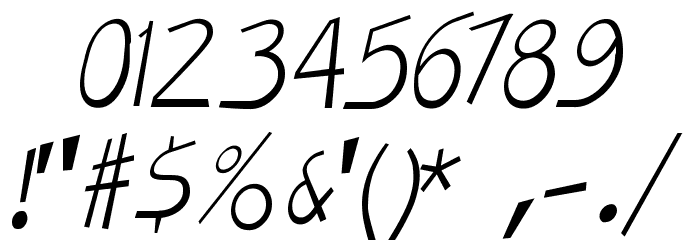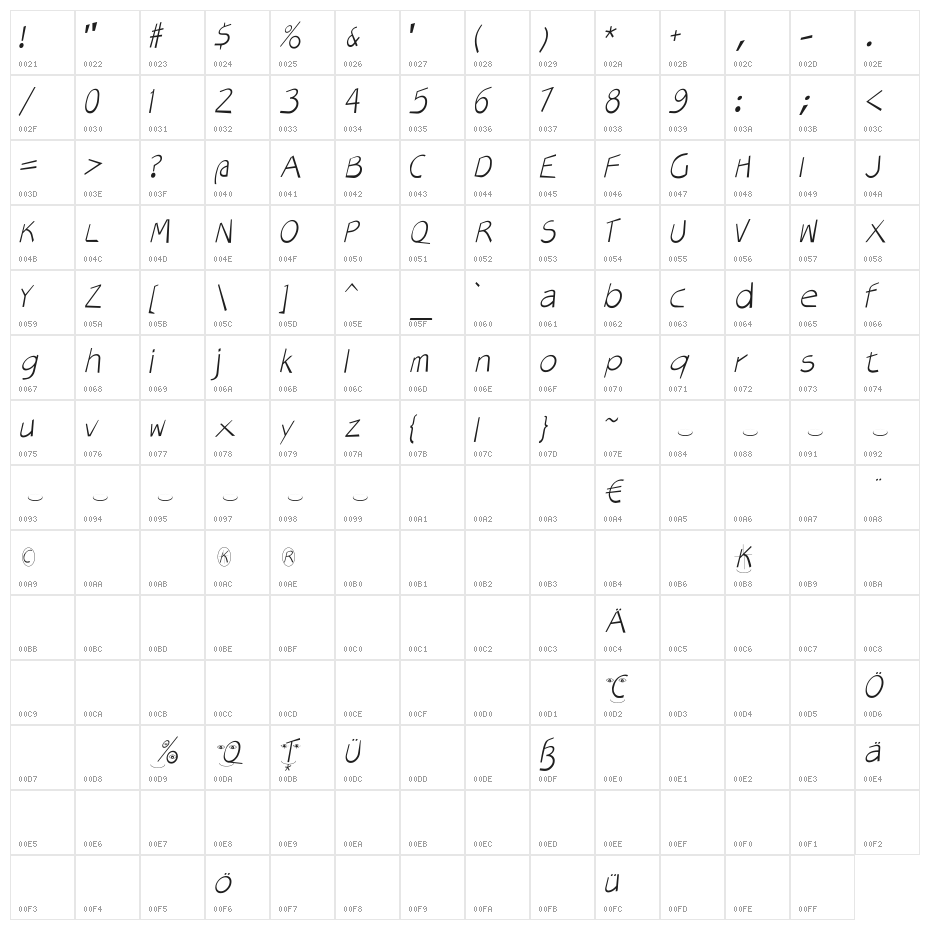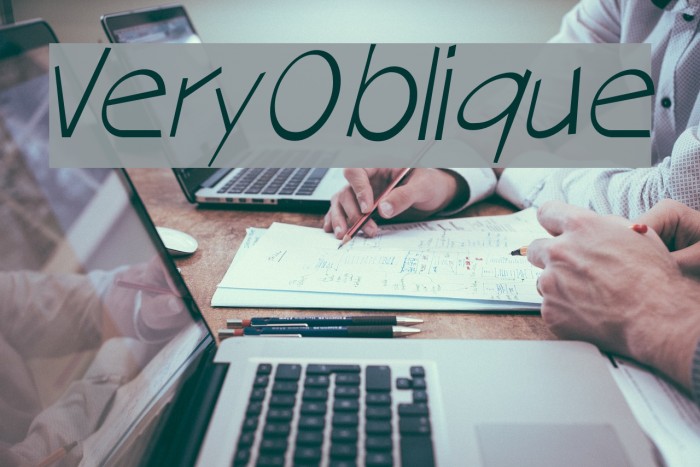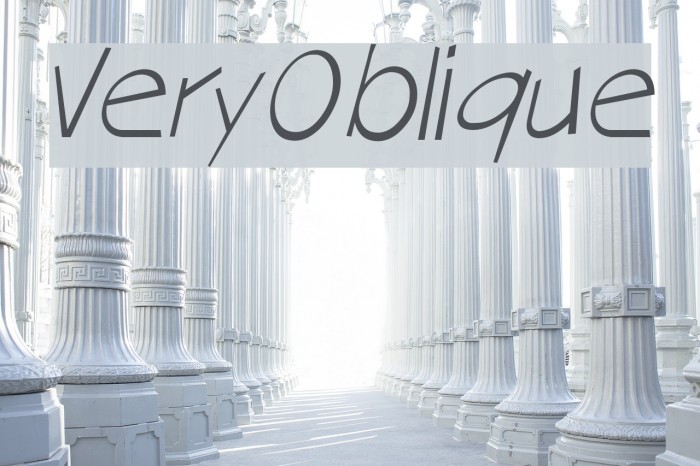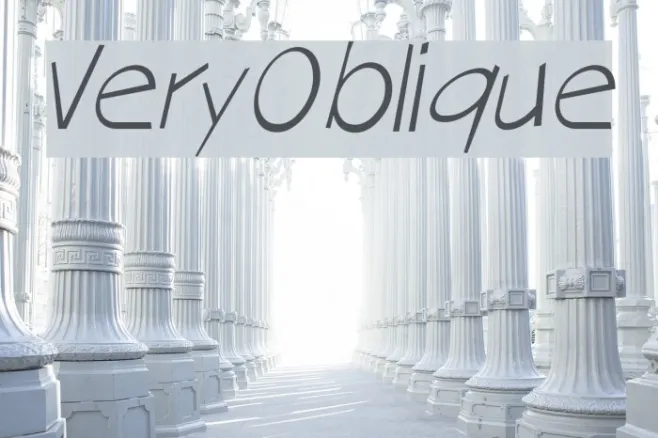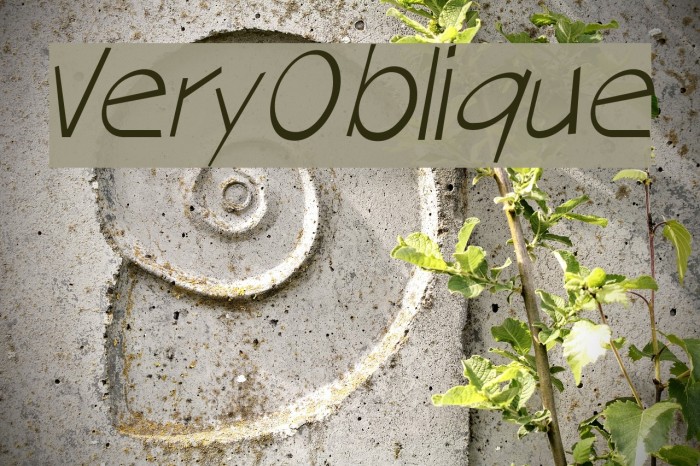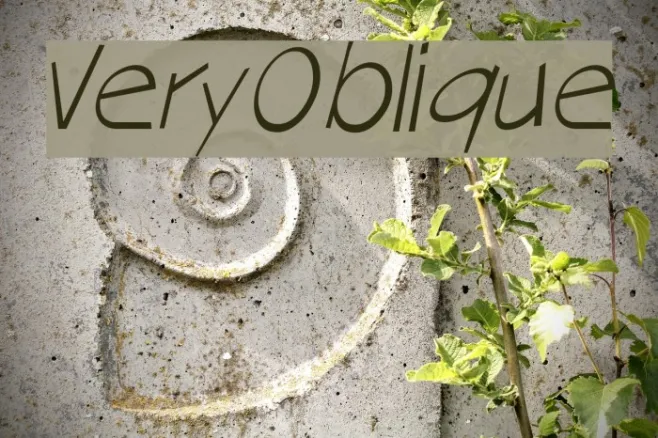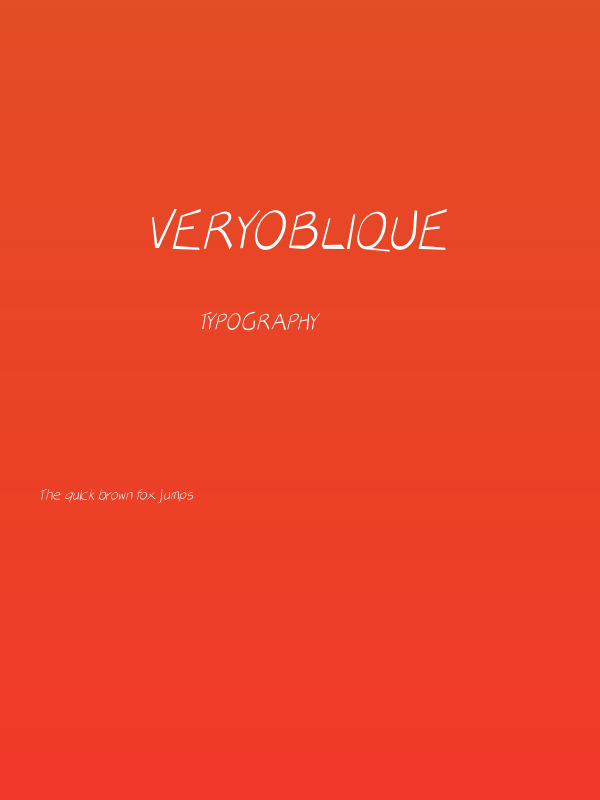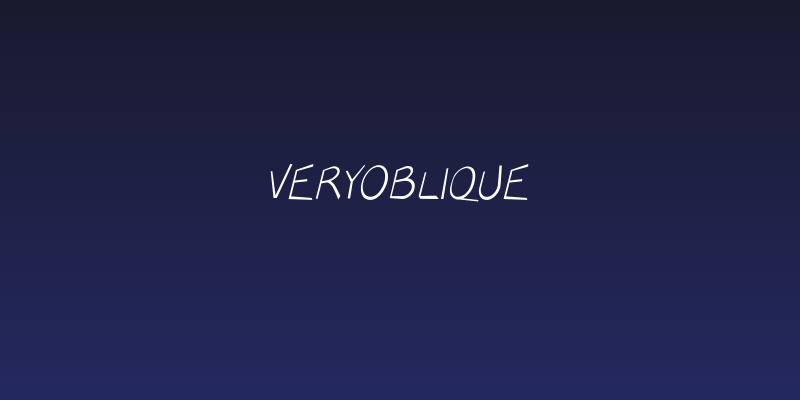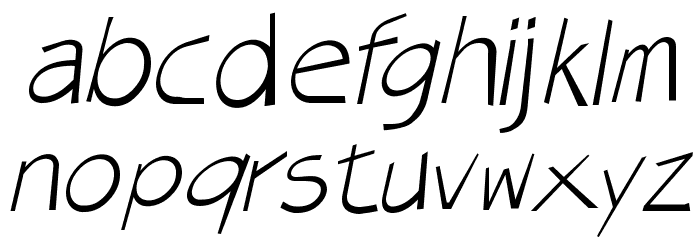
VeryOblique Font
VeryOblique Description
This font features a distinct oblique style, characterized by its slanted letterforms that convey a sense of motion and dynamism. The characters are sleek and elongated, with a consistent stroke width that maintains a clean and modern appearance. The uppercase letters are slightly taller than the lowercase, providing a balanced visual hierarchy. The numerals and special characters follow the same oblique style, ensuring uniformity across all glyphs. This font's design is minimalistic yet expressive, making it suitable for a variety of creative applications.